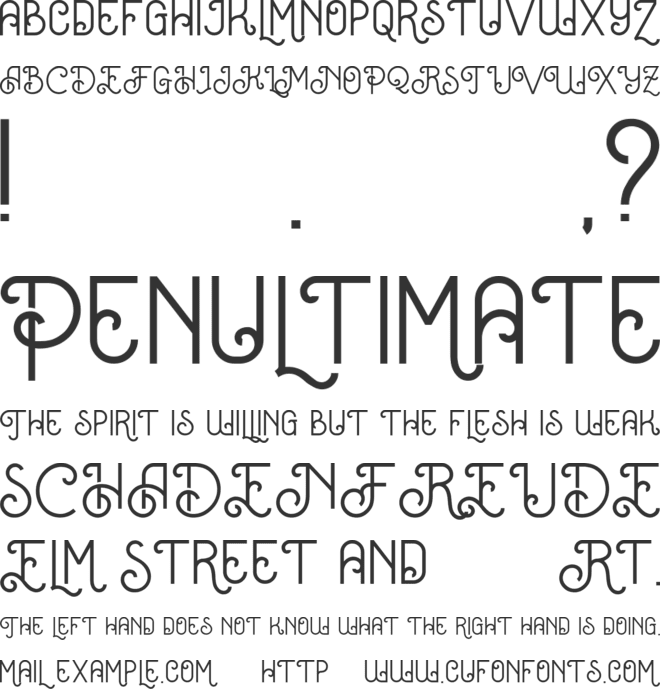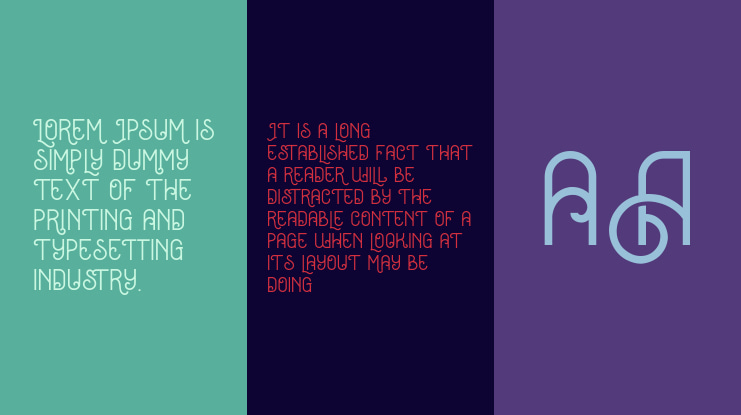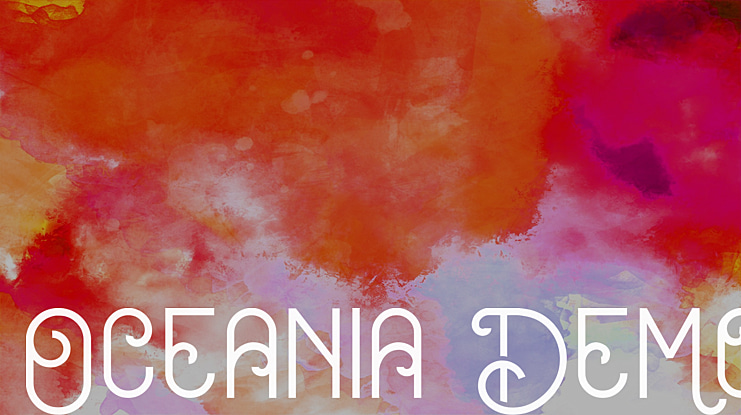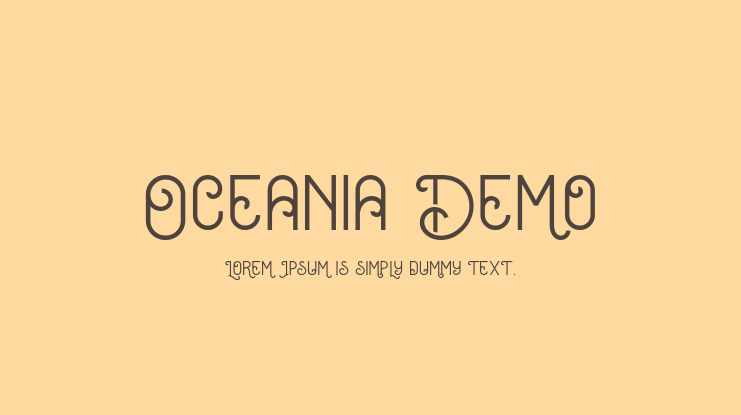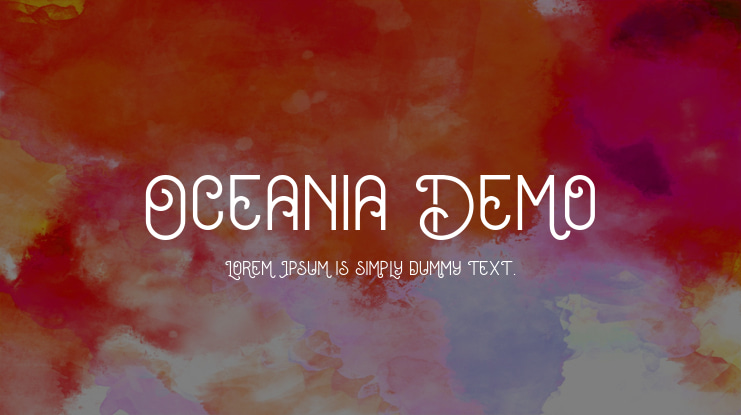
Oceania Demo Font
Oceania is unique display font with wavy dancing ocean wave. Bringing beach tropical freshness to your design. Suitable for your design need like headline, poster title, book cover, neon text, logo type, tshirt and so on